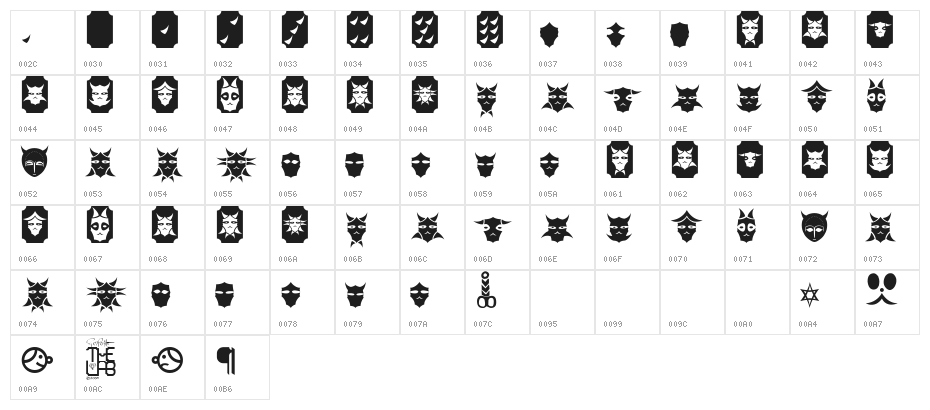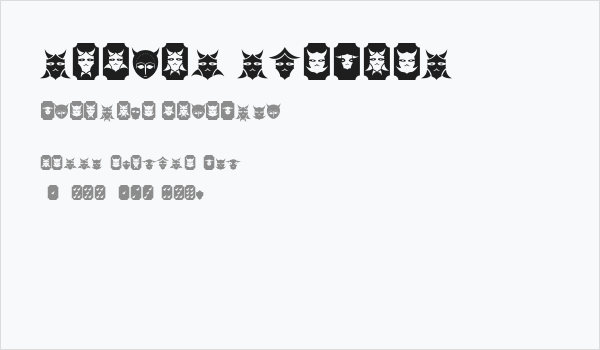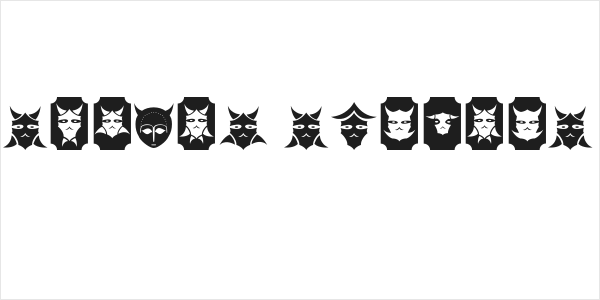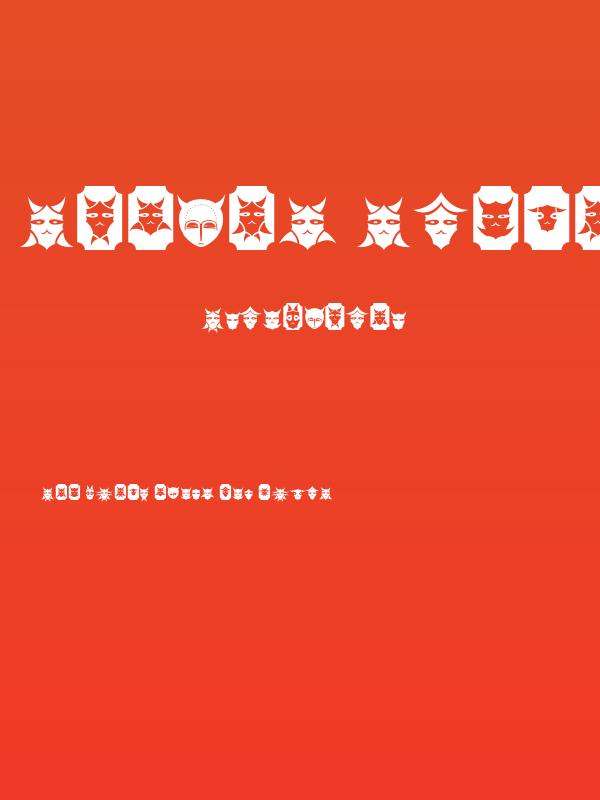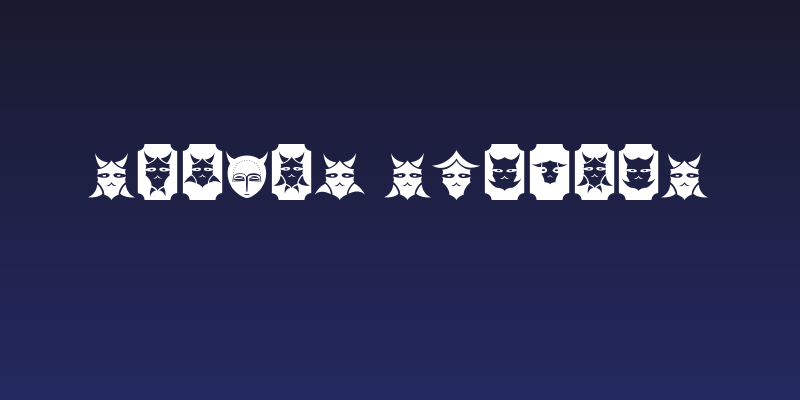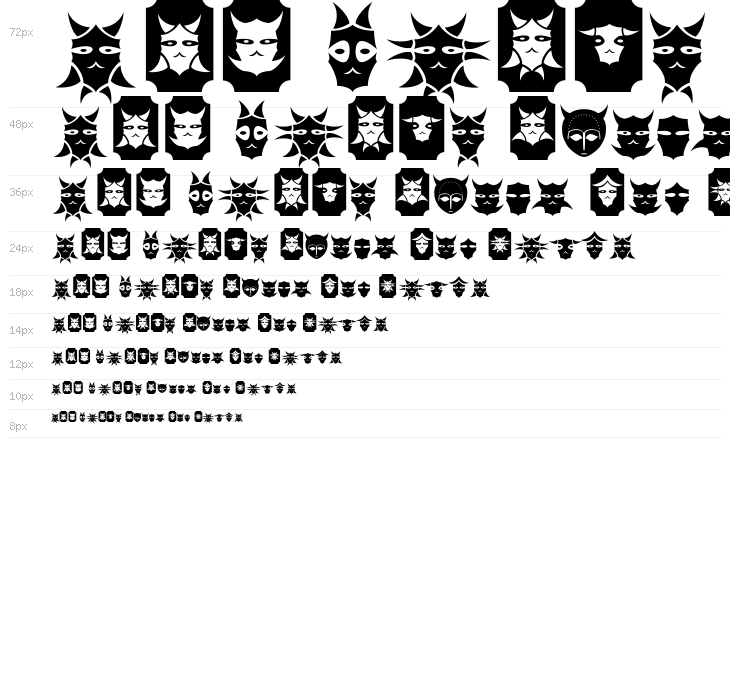
Sabril Species Font
Sabril Species Description
This is not a traditional font but rather a collection of decorative symbols resembling stylized faces or masks. Each character is uniquely designed with intricate patterns and shapes, giving the appearance of mythical or tribal masks. The designs are bold and striking, with high contrast between the black and white elements. These symbols are more suited for artistic or decorative purposes rather than for standard text representation.
| Use Case | Logos, Artistic designs, Posters |
| Proposed Projects | Ideal for use in graphic design projects, such as posters, album covers, or any creative work that requires a unique and artistic touch. |